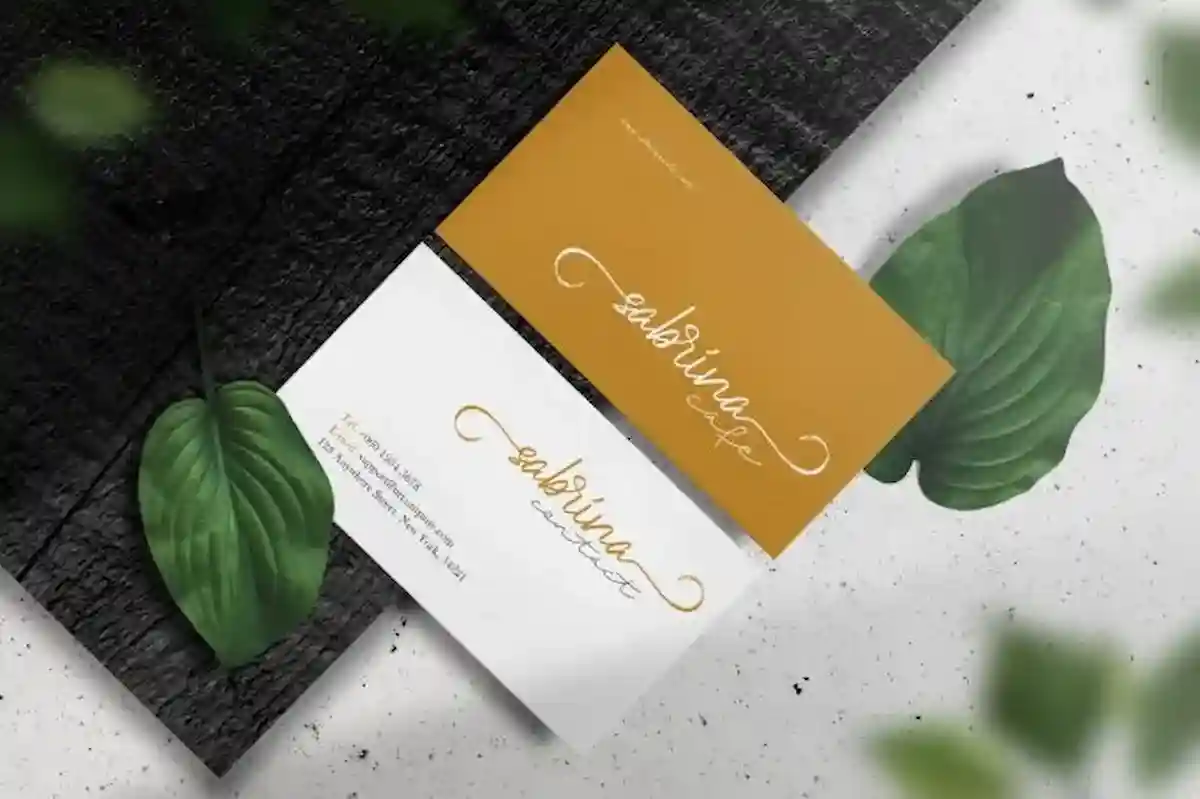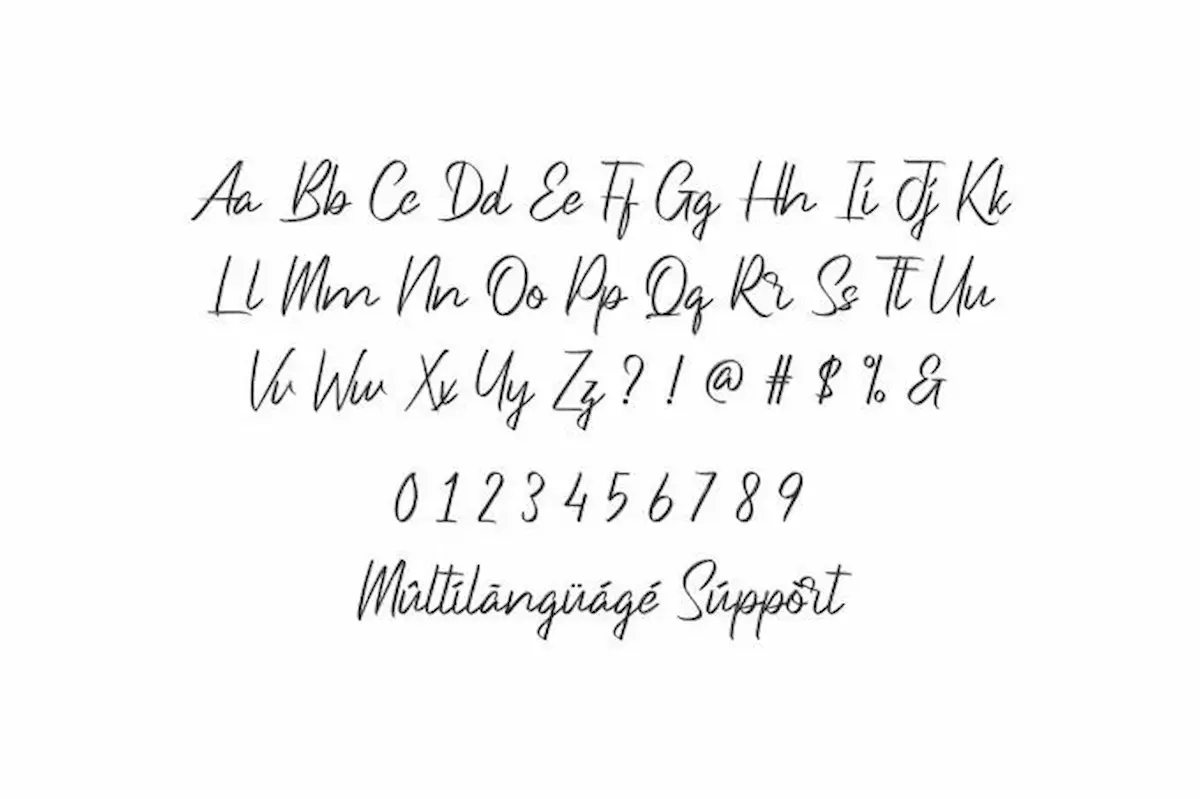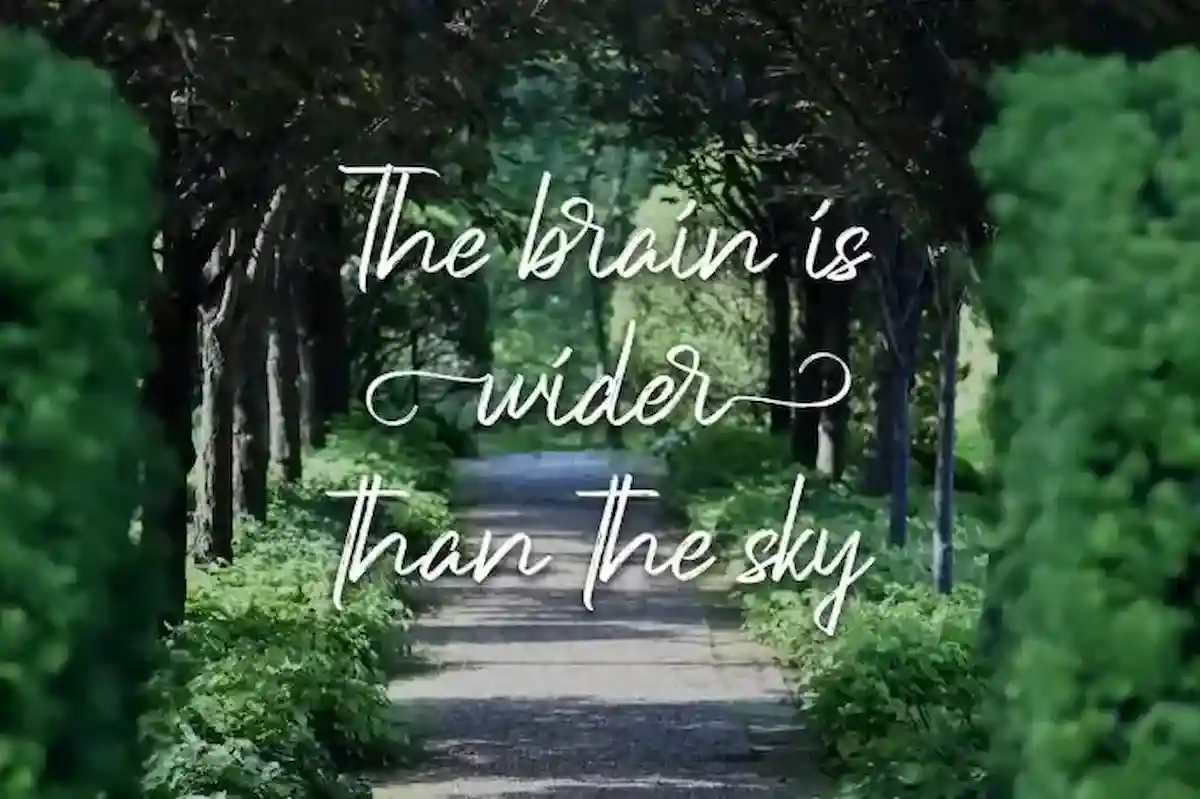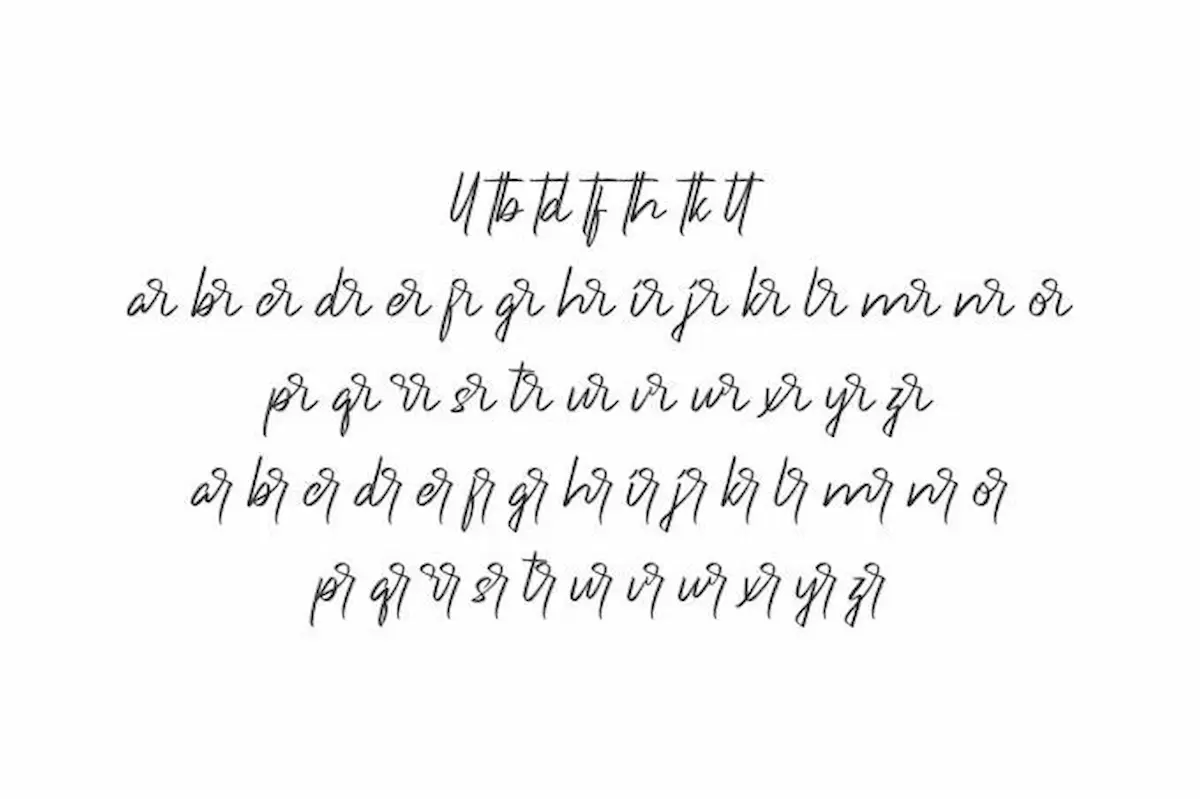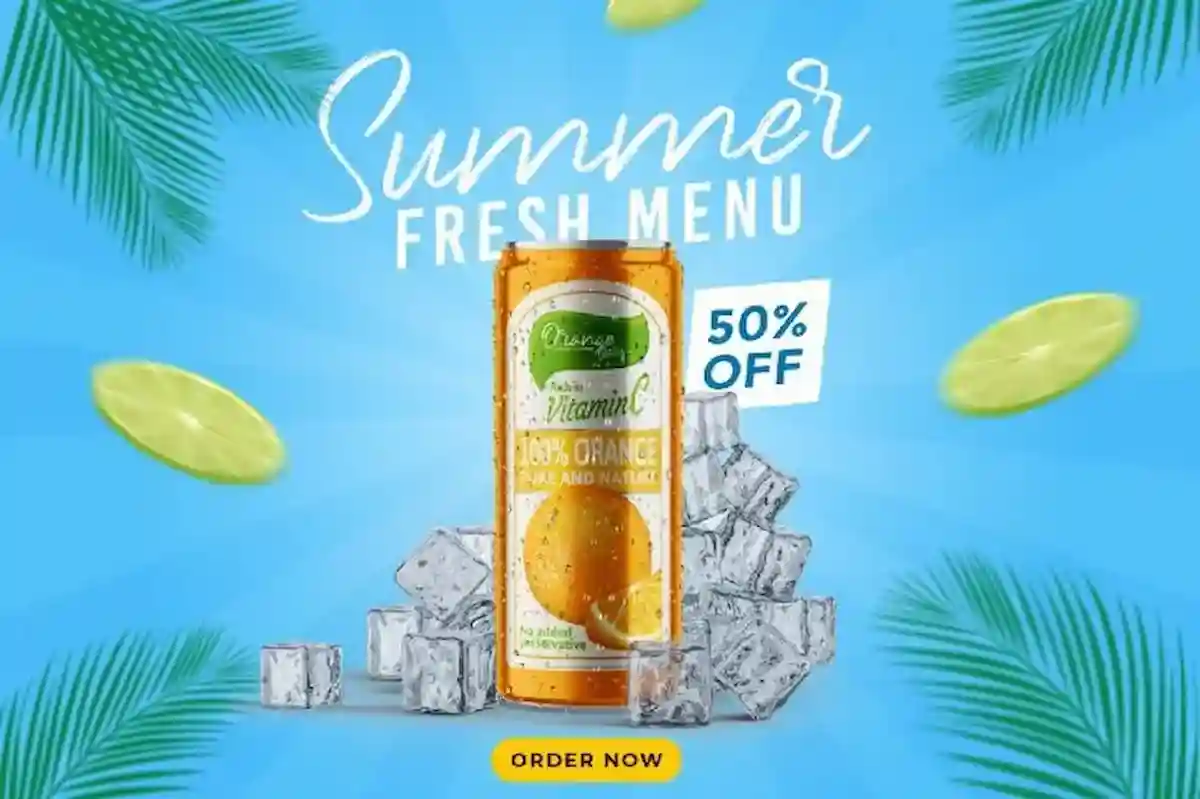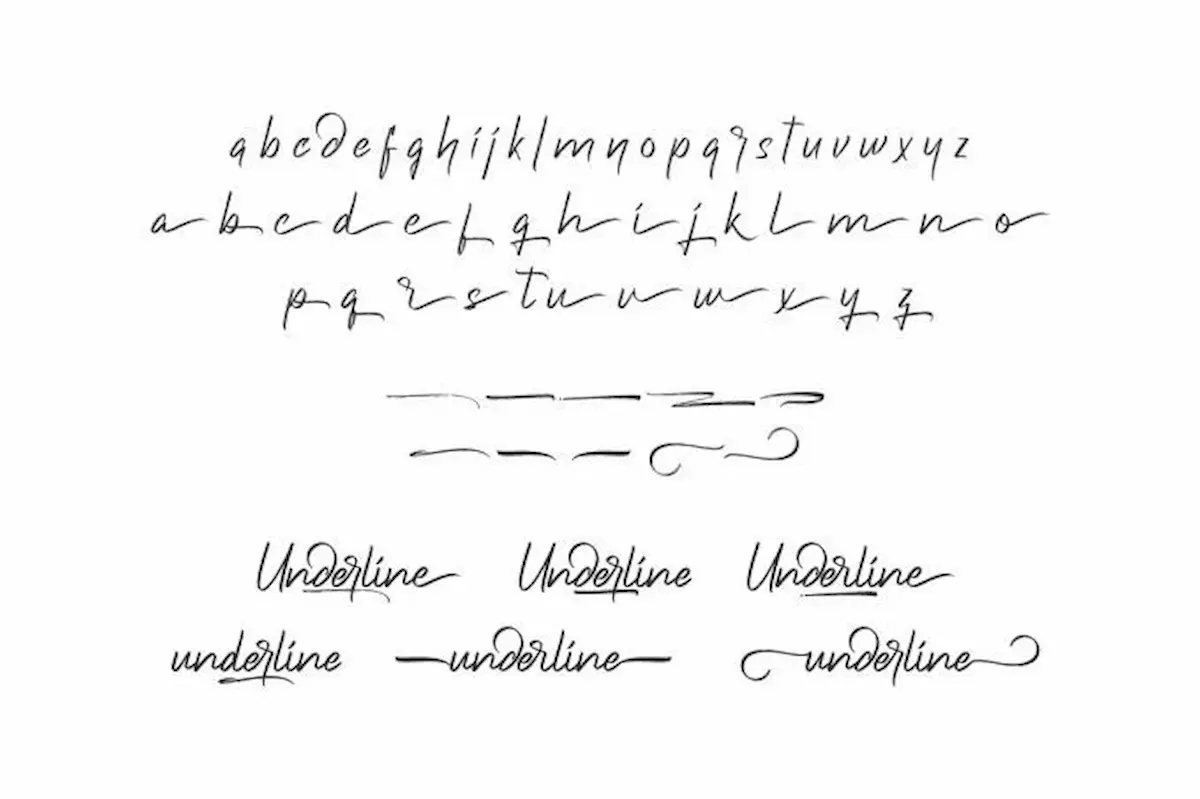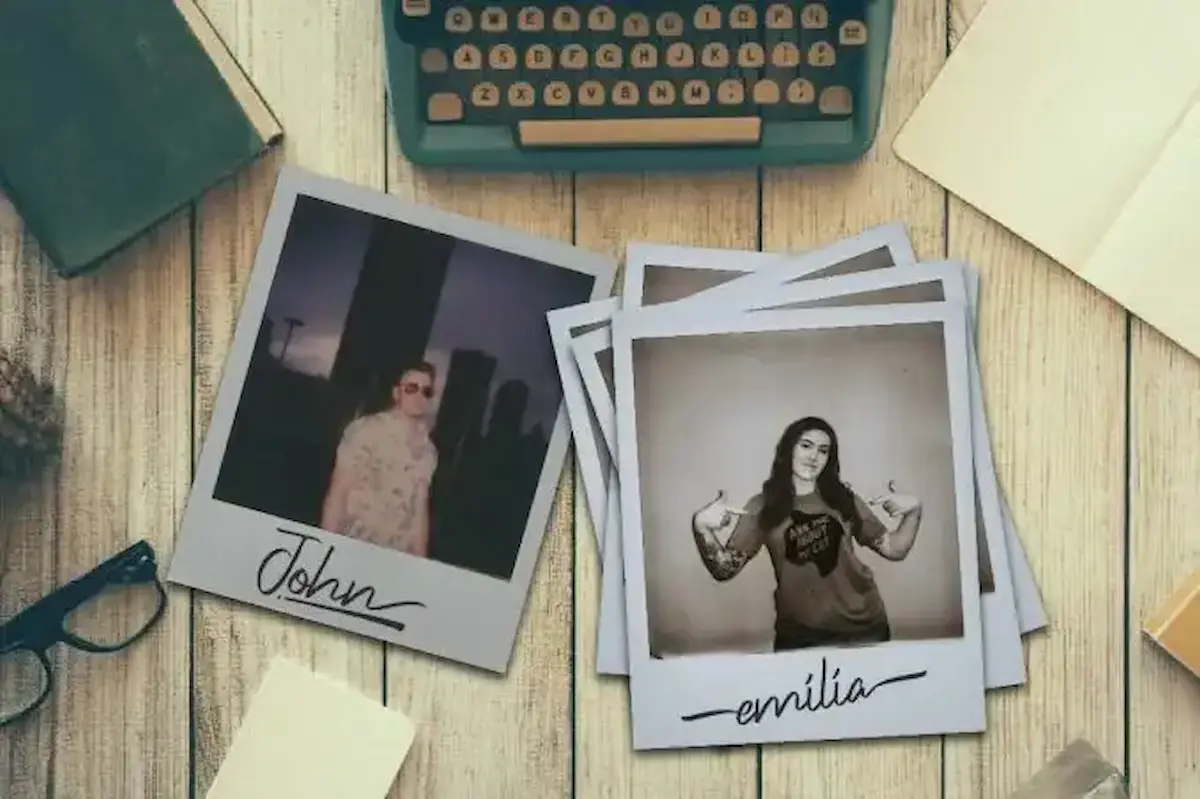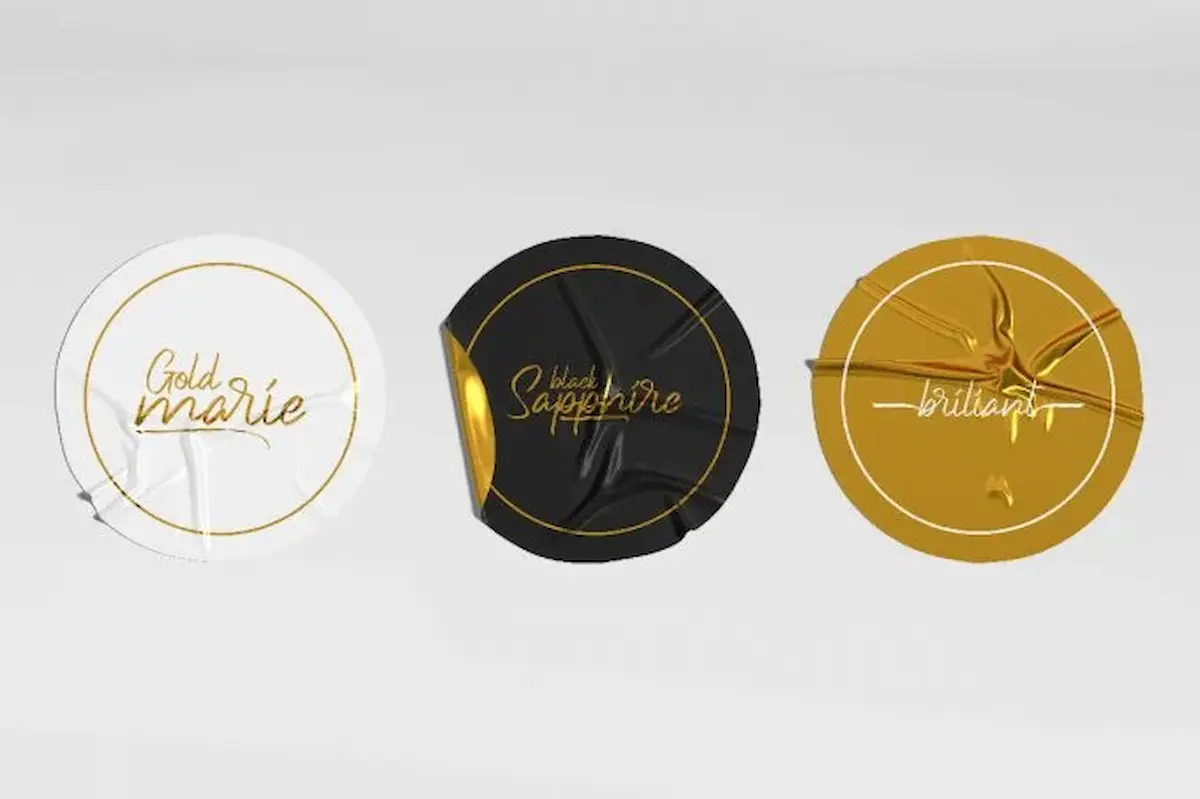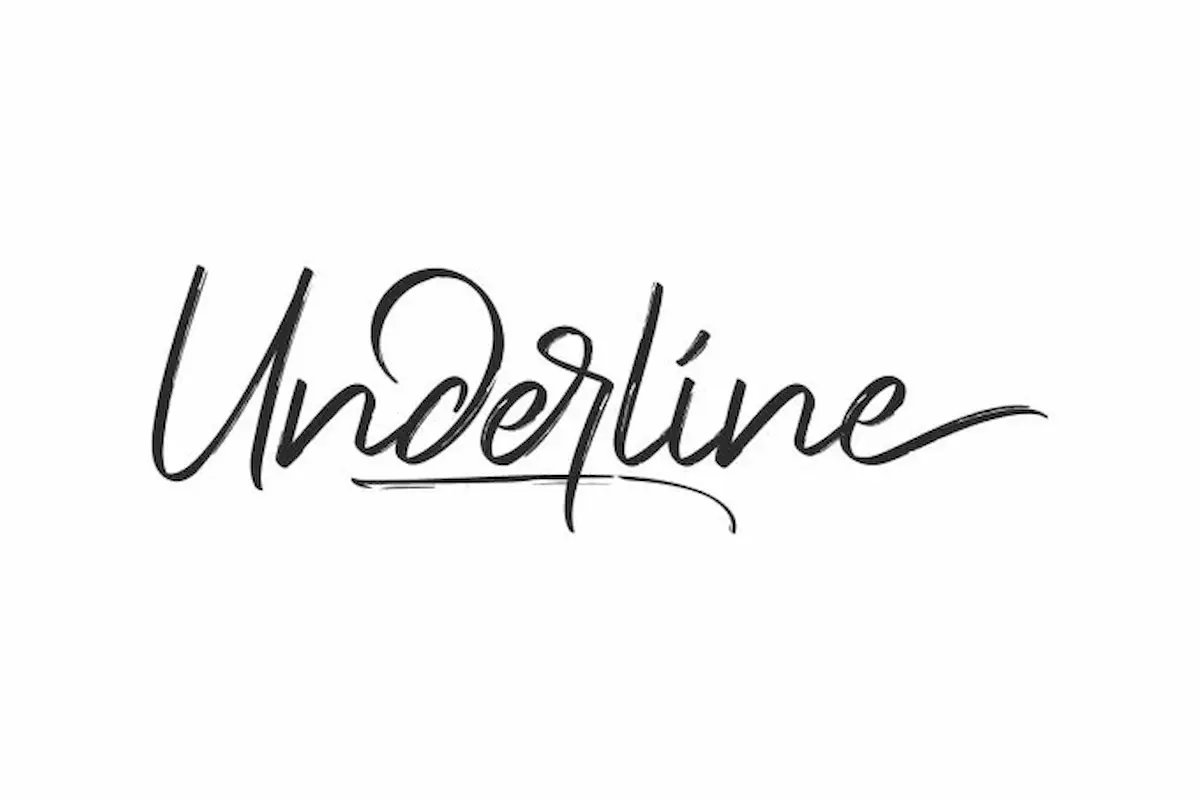
Underlines Font is a brush textured professional signature font by NihStudio. Underlines Font was Made for business, professional, video, photography etc
Underlines Font is a stylish textured brush signature font by NihStudio. This handcrafted typeface was carefully designed in Indonesia (2020) by our skilled creators, Widi and Suci, to bring out a classic yet modern signature look with a natural flow.
Underlines is ideal for personal and commercial use, whether you’re working on logo design, branding projects, stationery, invitations, signage, flyers, product packaging, social media content, or advertisements.
With a handmade feel and smooth signature flow, the Underlines font captures the essence of sophistication and authenticity. It offers great legibility and charm in both small and large sizes.
Font Features:
– Authentic signature brush style
– Elegant, handcrafted, and versatile look
– Excellent spacing and kerning